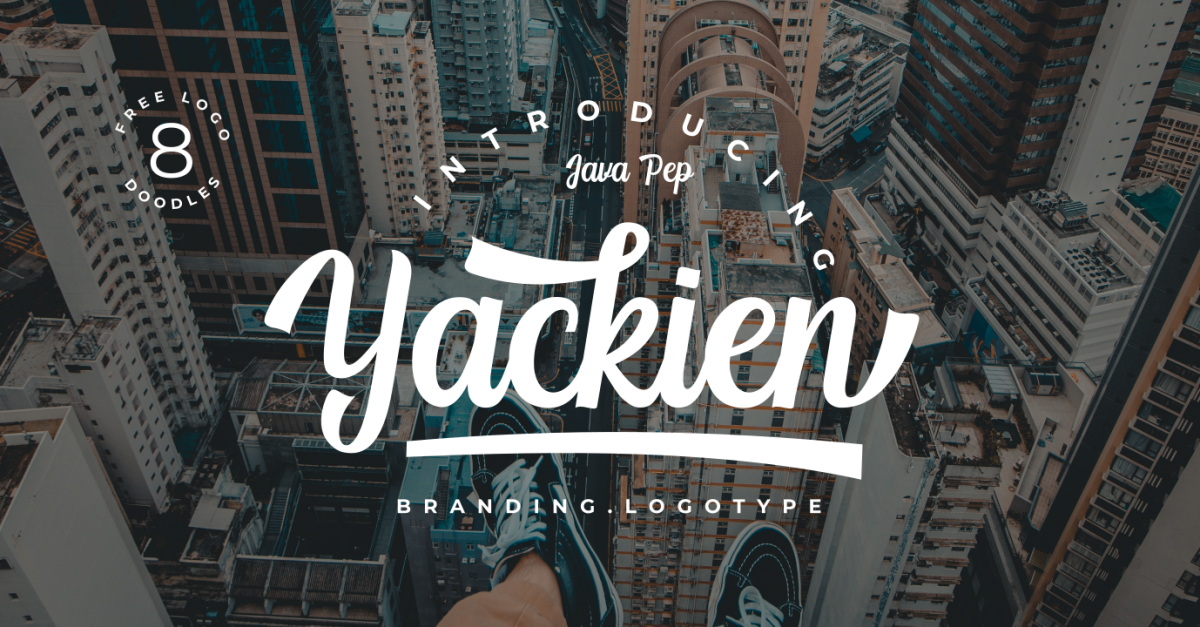
Yackien Script // Logo Font
Introducing the logo font called Yackien font. This font made for branding and logo font purposes, but still elegant for other project designs. Yackien (yakin) is the Indonesian language that the meaning is believed, trust, and convincing. So Yackien font can give off an aura of trust, believed, convincing, in your brand's logo and design.